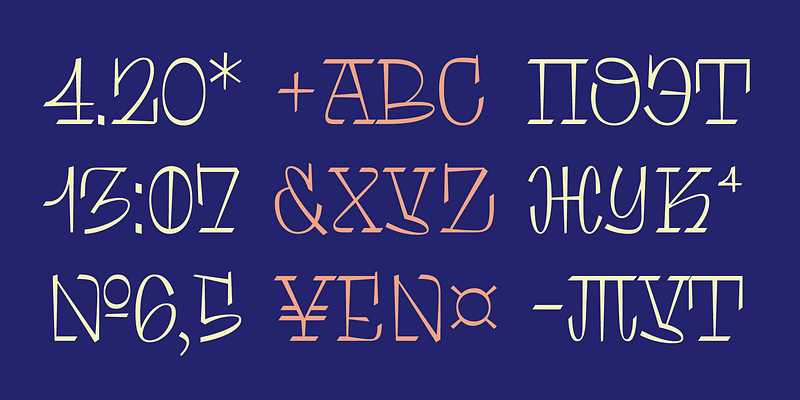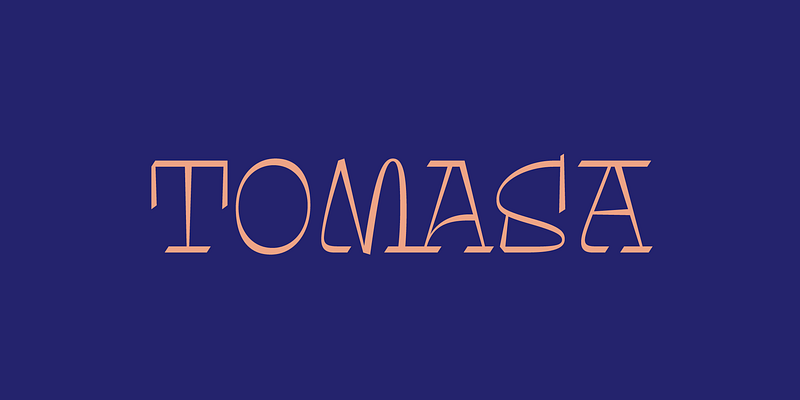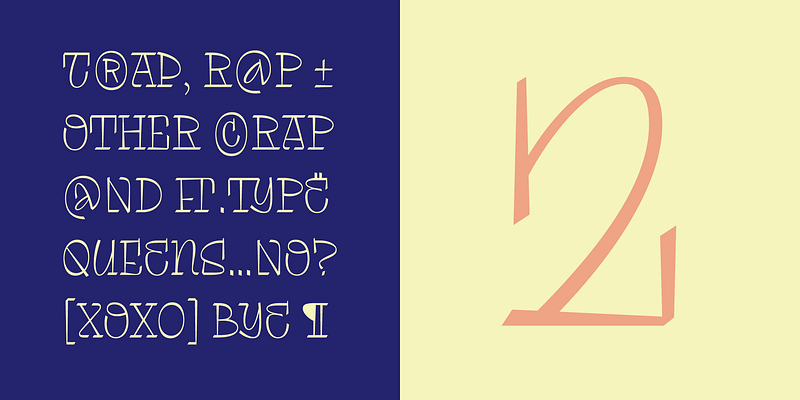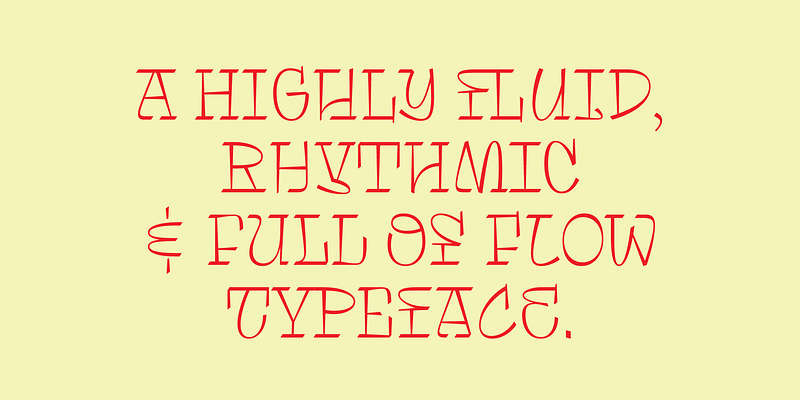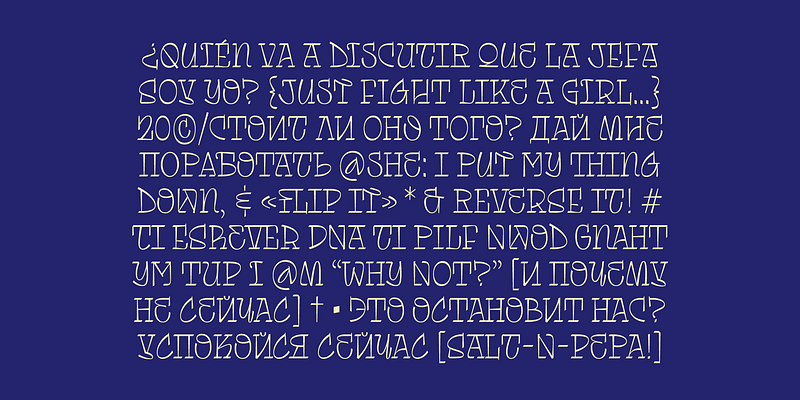
Tomasa is a contemporary typeface rooted in the visual and musical urban subcultures. The formal explorations of the characters are an interpretation of the letter forms used on the street scene, in an attempt to praise and evoke the peculiarities of graffiti and urban tag. The system has a complex identity, presenting four structural variants for each letter that represent the diversity, dynamism and rhythm of musical genres such as rap, hip hop and trap. The name is a tribute to the Chilean singer Tomasa del Real and the neoperreo dance movement.
Fer Cozzi
Born in Argentina, Fer Cozzi attended the University of Buenos Aires, where she completed a degree in graphic design and a postgraduate specialization in type design, completing several courses in calligraphy, lettering and type design. Fer currently teaches in the Master of Typeface Design at the University of Buenos Aires.
Fer Cozzi’s type explores rhythms, shapes and strokes where randomness and a not-so-obvious rationality meet. Expert in nothing, with opinions on everything and successful in all kinds of failures. When she’s not drawing letters, she’ probably dancing to the rhythm of 90s pop.